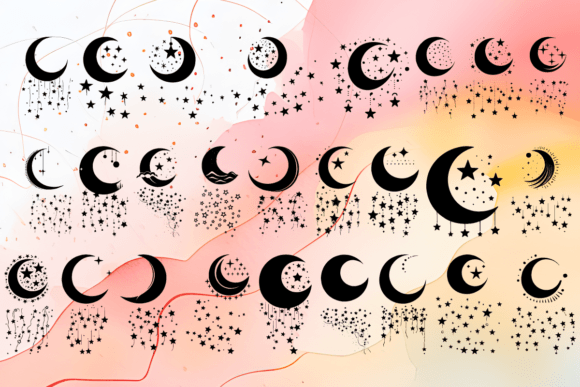
Introduction to Moon with Stars Font
Introducing Moon with Stars Dingbats Fonts.
This digital product offers a captivating set of 26 celestial-themed characters from A to Z, featuring charming moons and twinkling stars The files you’ll receive include both OTF and TTF formats for easy use across different design software.
Key Features of Moon with Stars Font